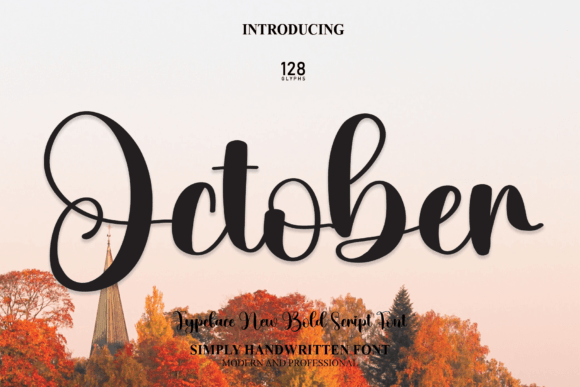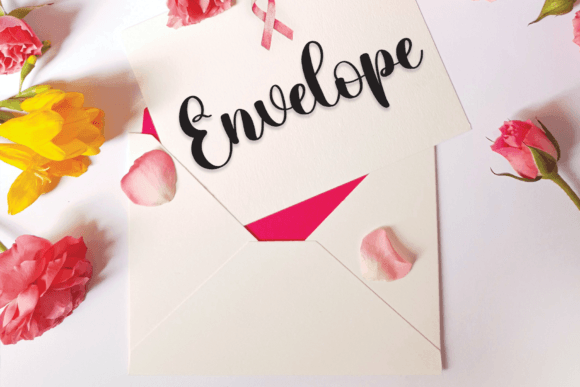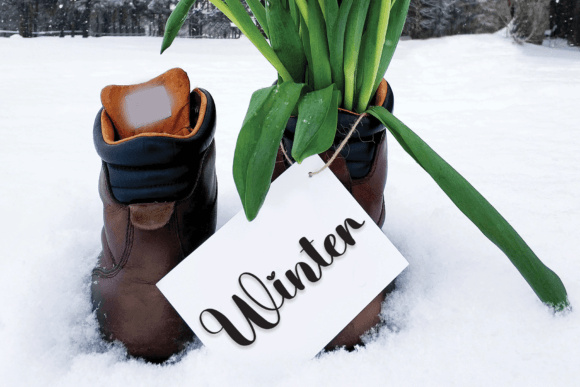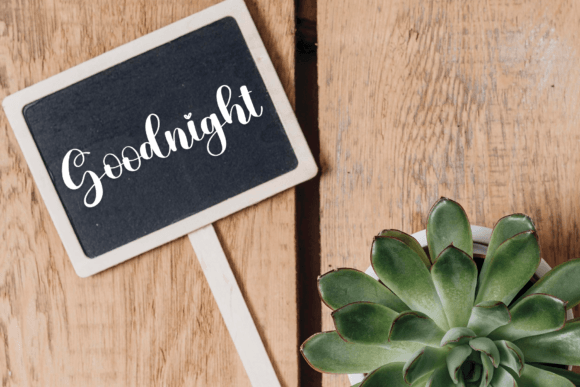
About October Font
**October: A Cute and Cozy Handwritten Script Font**
Introducing October, a cute and cozy handwritten script font that brings a sweet and lovely vibe to your design projects. This font is the perfect choice for all your creative endeavors that require a romantic touch, evoking a sense of warmth and charm.
The primary charm of October lies in its sweet and cozy style. The handwritten script characters are meticulously crafted to exude a sense of authenticity and tenderness. Whether you’re working on wedding invitations, love letters, or any project that calls for a romantic touch, October adds a dash of sweetness that resonates with your audience.
This font’s versatility knows no bounds. It can be used to create heartwarming designs for various occasions, from greeting cards to social media posts, branding materials to stationery. Its cute and cozy vibe ensures that your message is not only conveyed with tenderness but also with an inviting and charming feel.
In summary, October is more than just a font; it’s a source of cuteness and coziness that enhances your design projects. Its sweet and lovely script letters make it the perfect choice for infusing romance and warmth into your work. With October, your creative projects will shine with a heartwarming and charming touch. Choose October, and let your designs radiate with its cozy and romantic appeal.